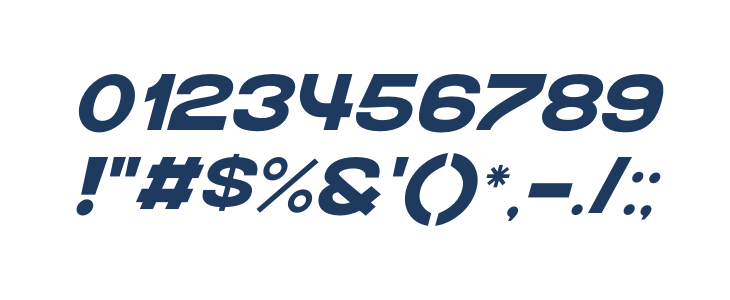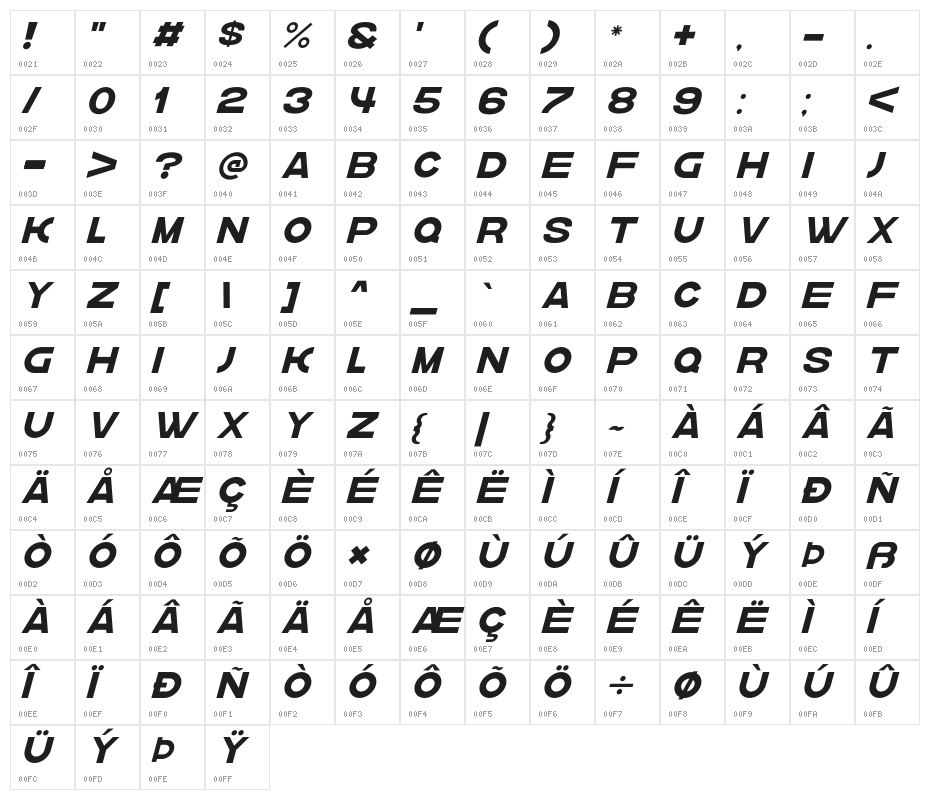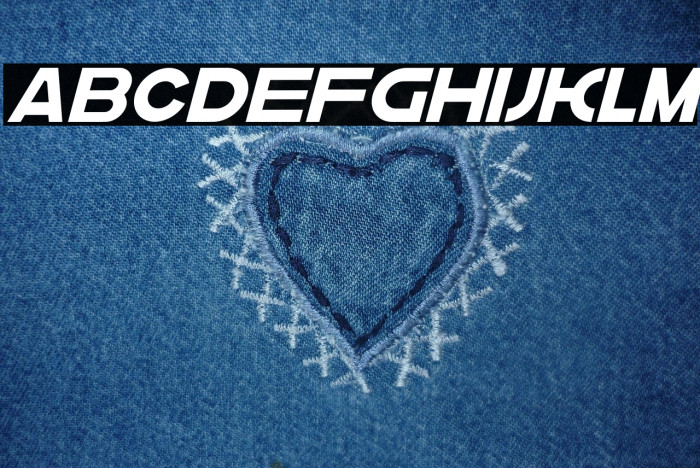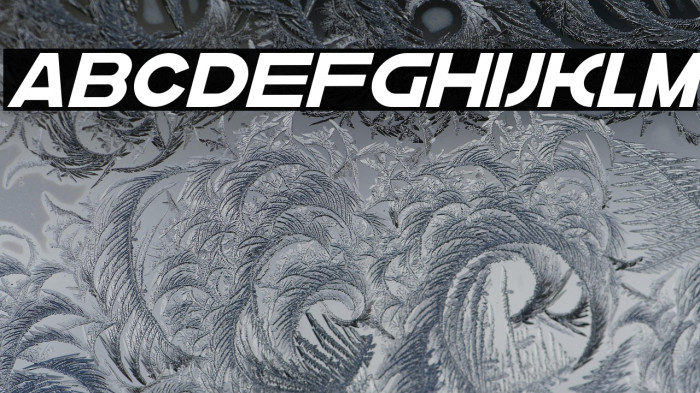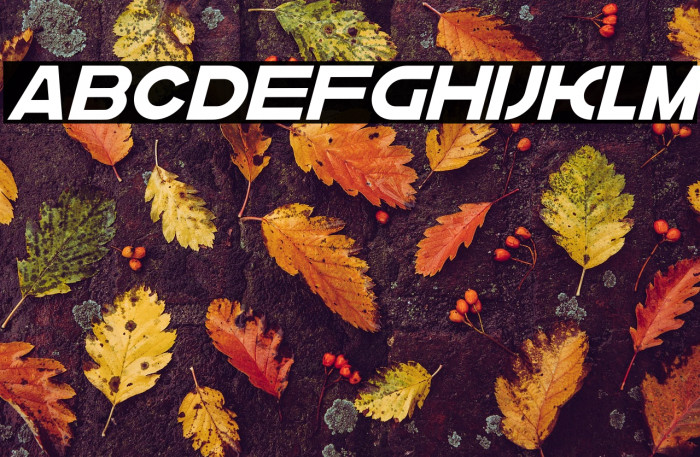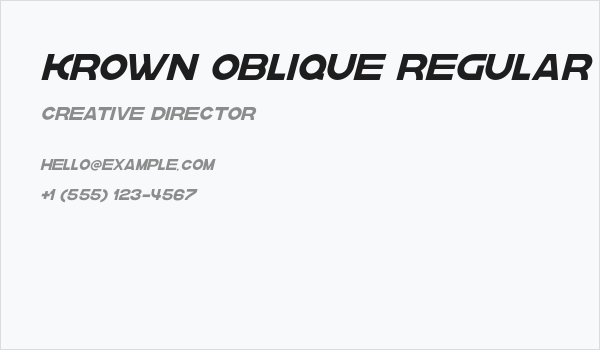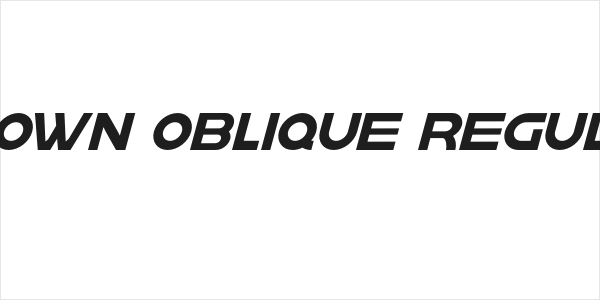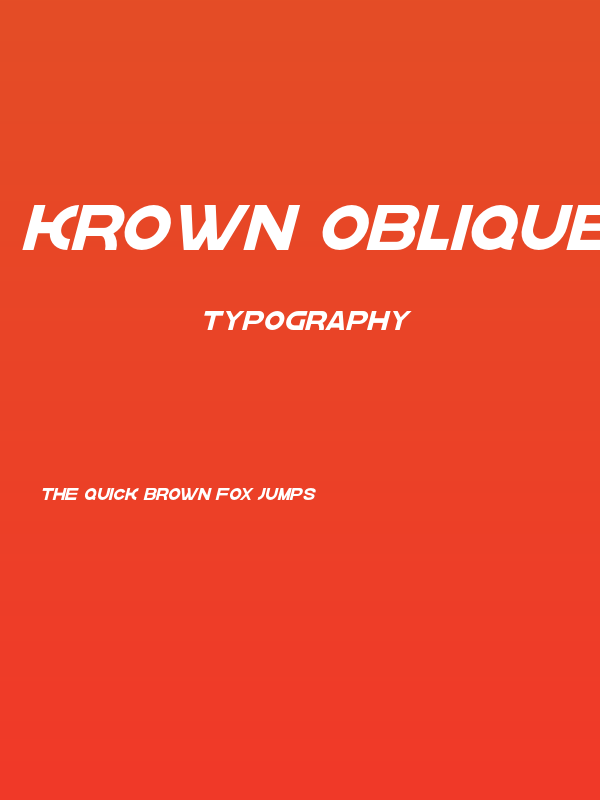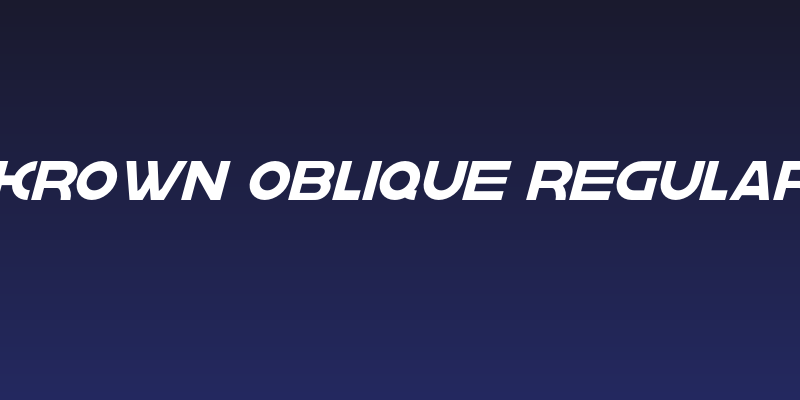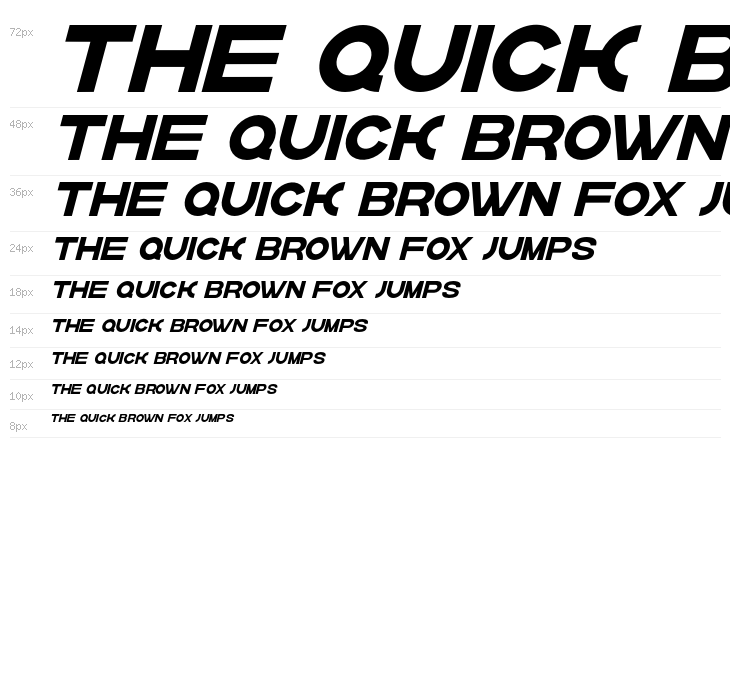
krown oblique Regular Font
krown oblique Regular Description
This font features a bold and dynamic style with a distinct oblique slant, giving it a sense of motion and energy. The characters are wide and robust, with a consistent stroke weight that enhances readability while maintaining a strong visual impact. The uppercase and lowercase letters are designed with a modern flair, incorporating smooth curves and sharp angles that create a sleek and contemporary appearance. The numerals and special characters follow the same design principles, ensuring uniformity across all glyphs. This font's bold presence makes it suitable for applications where attention-grabbing text is essential.
| Proposed Projects | Ideal for sports branding, dynamic posters, modern advertising, and any project requiring a bold, energetic typeface. |